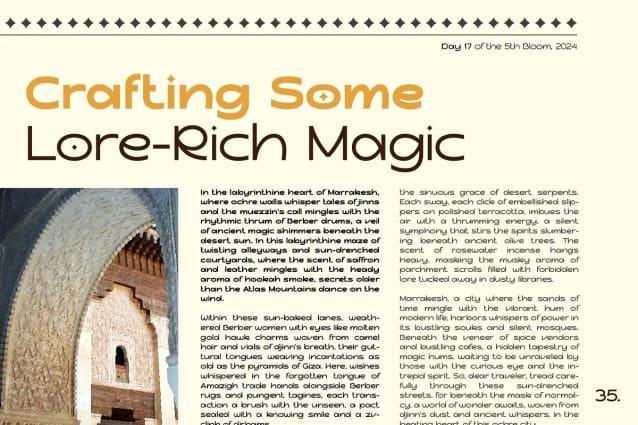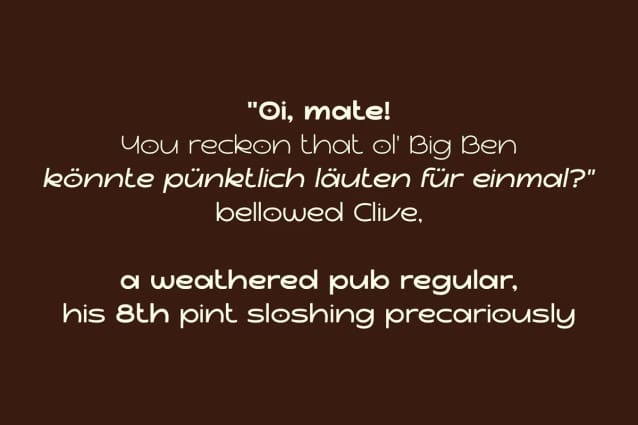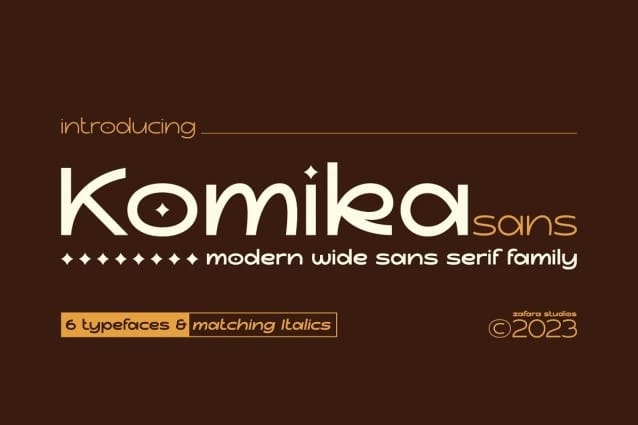
Komika Sans Font
Komika Sans Font is a geometric modern wide sans serif family, with 6 weights and 6 italics, which can be easily accessed from the OpenType menu. This font can be used for headlines, titles, logotypes, magazines, and other types of text that need to be visible and easy to read.